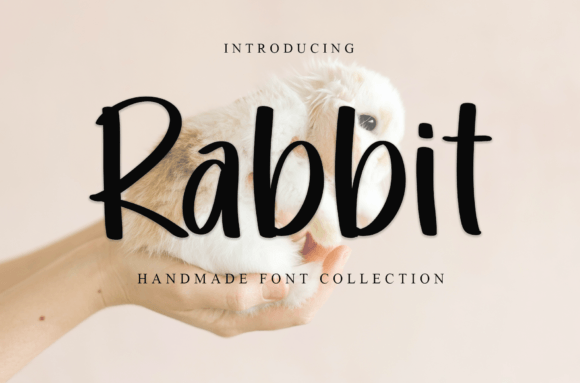
Welcome to the world of Rabbit Font – the ultimate choice for anyone who wants to add a touch of cuteness and casualness to their writing projects. As the name suggests, Rabbit Font is a script font family created by Creatype Designer that perfectly blends style with functionality.
Are you a beauty salon owner looking for the best fonts to make your marketing materials stand out? Look no further! Rabbit Font is the perfect fit for your business. Its playful and friendly nature will instantly grab your customers' attention and make them feel welcomed.
But that's not all – Rabbit Font is also a great choice for social media enthusiasts. Whether you're an Instagram influencer, blogger, or content creator, this font will take your posts to the next level. Its unique and eye-catching style will make your content stand out from the crowd and leave a lasting impression on your audience.
Rabbit Font is not just a font – it's a piece of art. Its cute and casual handwritten style gives it a warm and personal feel, making it perfect for DIY projects, invitations, and greeting cards. With Rabbit Font, you can turn any creative idea into a true masterpiece.